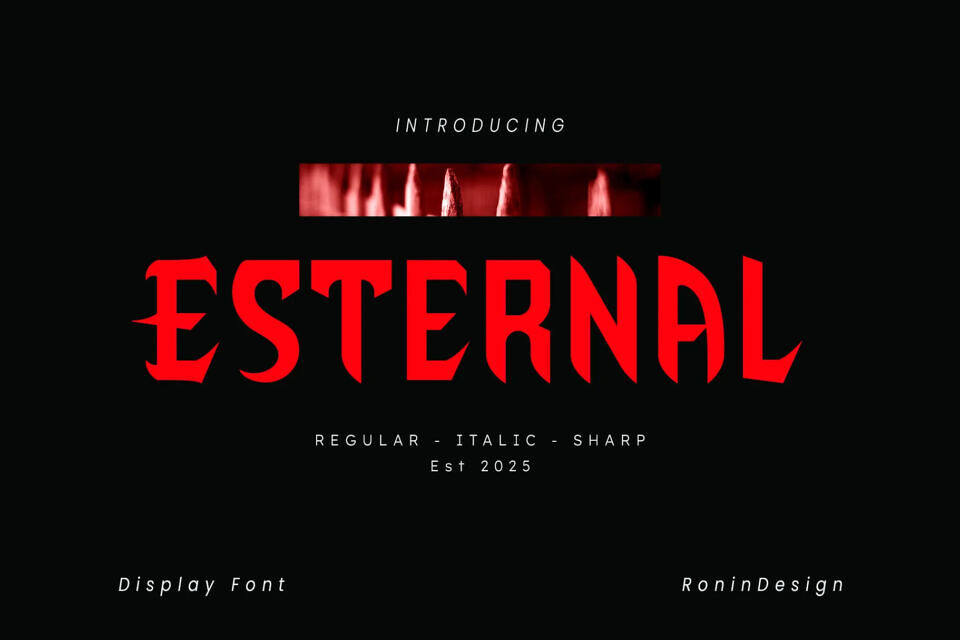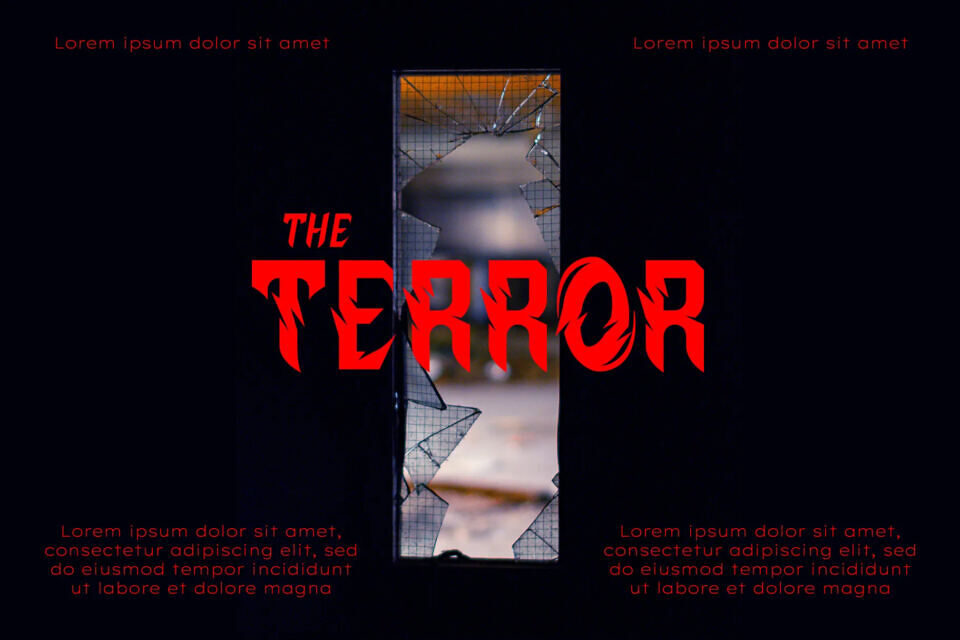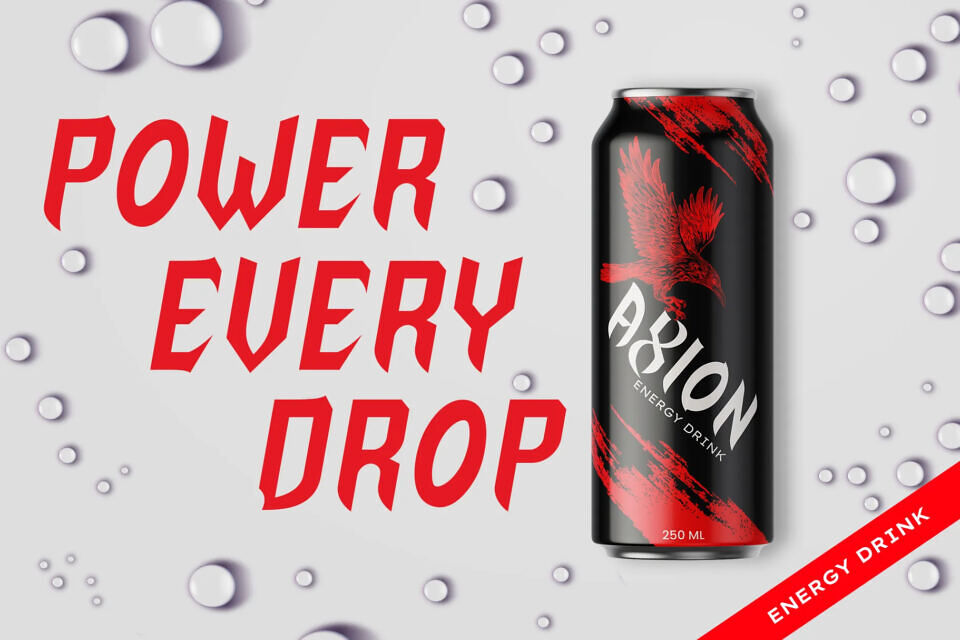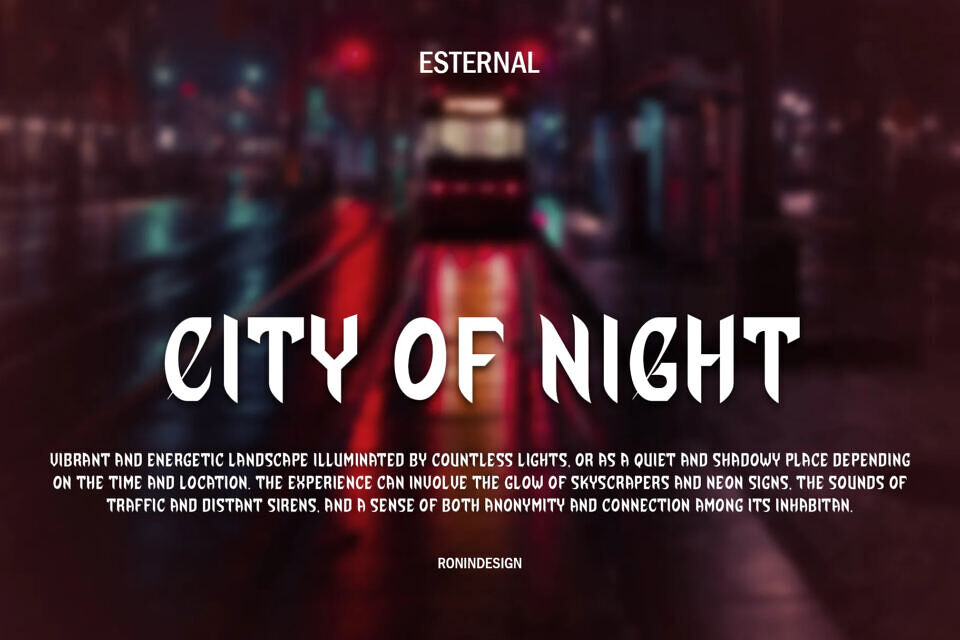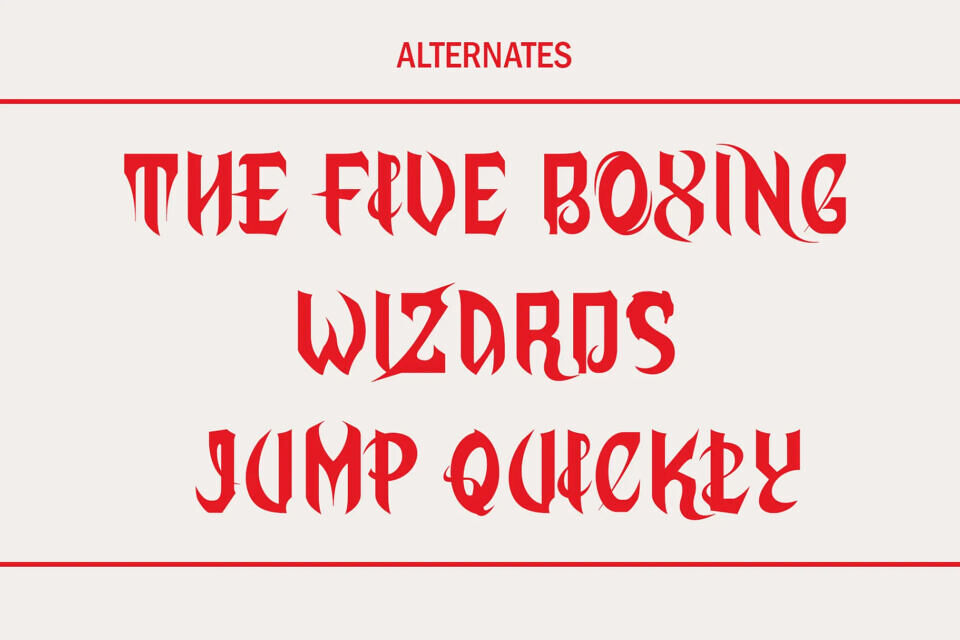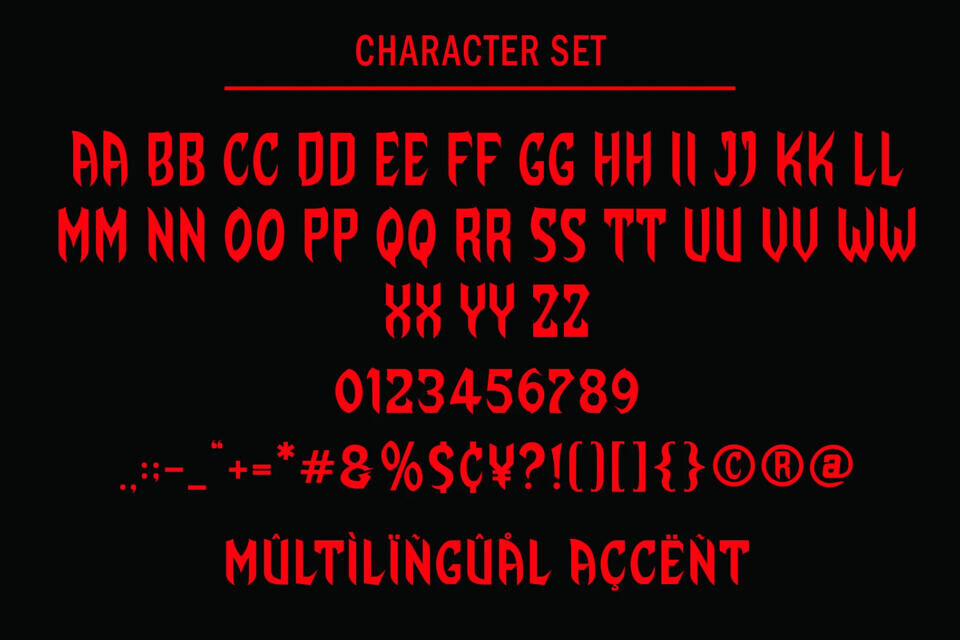
Esternal Font
Esternal is a bold display typeface designed for high-impact visual presence. Featuring sharp edges, angular cuts, and a modern gothic influence, this font delivers strong personality and unmistakable attitude.
Perfect for branding, merchandise, album covers, posters, gaming visuals, and many more. With three distinct styles — Regular, Italic, and Sharp — Esternal offers flexibility while maintaining a fierce and dominant visual identity.